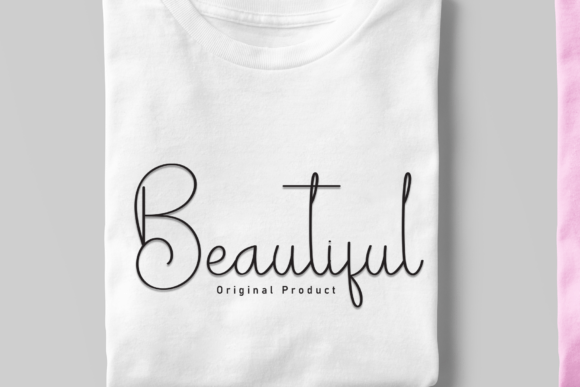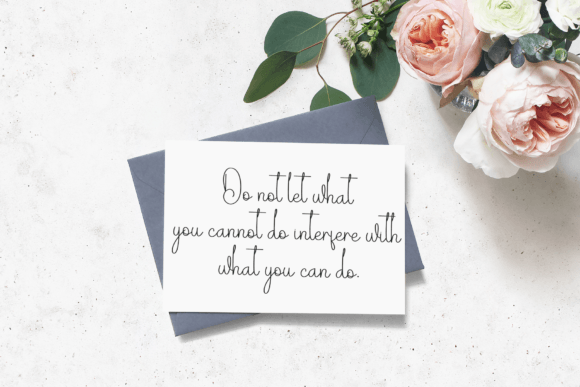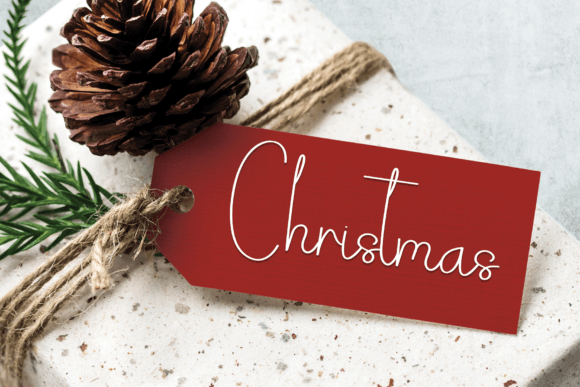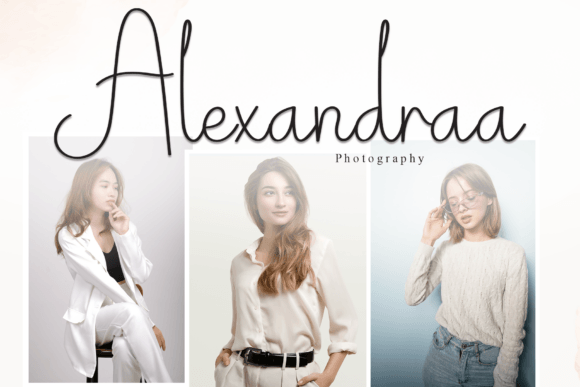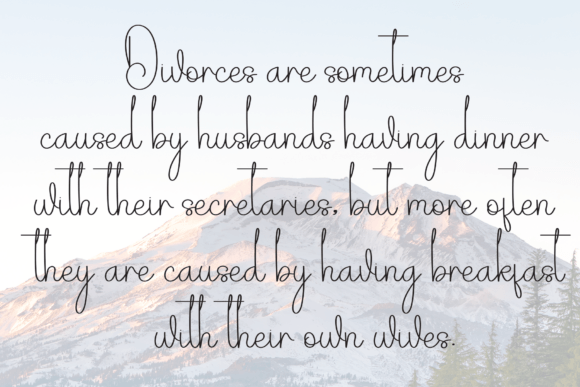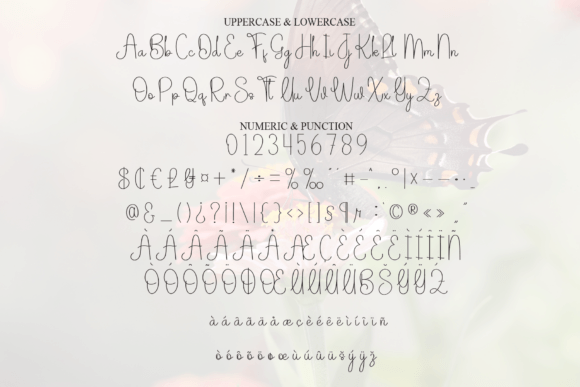
The Elegance of Butterfly Font: A Designer’s Delight
I’ll never forget the time I was working on a wedding invitation project, and my client asked for a font that was ” elegant, yet playful.” I scoured the internet, tried out dozens of fonts, but nothing seemed quite right. That was until I stumbled upon Butterfly Font. Its flowing, graceful curves immediately caught my eye, and I knew I had found the perfect fit. In this article, I’ll share my love for Butterfly Font, its features, and how to make the most of it in your designs.
A Personal Review: What I Love About Butterfly Font
Butterfly Font is a stylish handwritten script font that exudes elegance and charm. Here are some things I love about it:
- ✨ Delicate strokes: The font’s gentle strokes bring warmth and creativity to any design.
- ✅ Perfect for invitations and branding: Butterfly Font adds a personal and sophisticated touch to any project.
- 💫 Flowing curves: The font’s elegant curves make it perfect for designs that require a touch of sophistication.
While Butterfly Font is a beautiful font, there are a few things to keep in mind:
- ⚠️ Limited use in body text: Due to its elegant and cursive nature, Butterfly Font may not be the best choice for long blocks of body text.
- 🤔 Requires attention to spacing: The font’s delicate strokes can get lost if the spacing is too tight.
A Practical Guide: Using Butterfly Font in Your Designs
- Experiment with OpenType features like ligatures and stylistic alternates to add more personality to your design.
The Designer Inspiration Behind Butterfly Font
Butterfly Font was inspired by the delicate beauty of butterflies and the elegance of handwritten scripts. The designer aimed to create a font that would bring a touch of sophistication and charm to any design. With its flowing curves and delicate strokes, Butterfly Font is perfect for designers who want to add a personal and elegant touch to their projects.
| What is Butterfly Font best used for? | Butterfly Font is perfect for invitations, logos, branding, and any design that requires a touch of elegance and sophistication. |
| Is Butterfly Font suitable for body text? | While Butterfly Font is beautiful, it’s not ideal for long blocks of body text due to its elegant and cursive nature. |
| Does Butterfly Font have OpenType features? | Yes, Butterfly Font has OpenType features like ligatures and stylistic alternates that can add more personality to your design. |